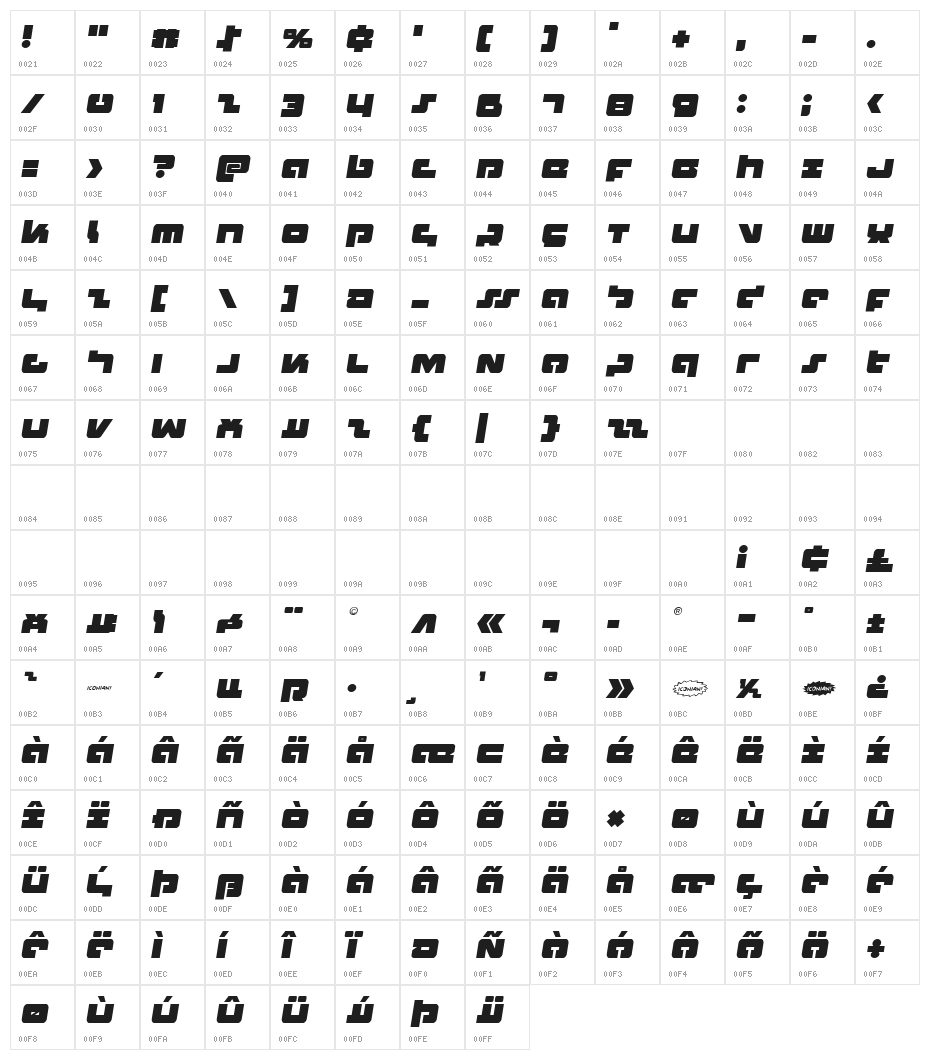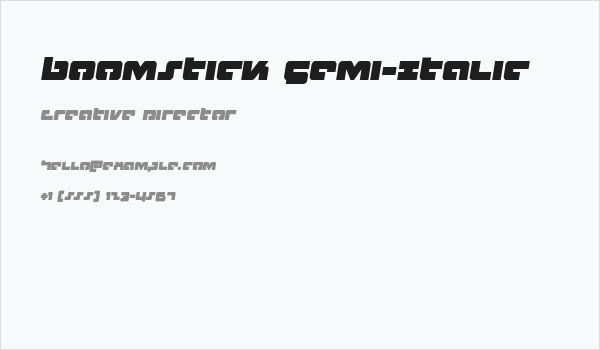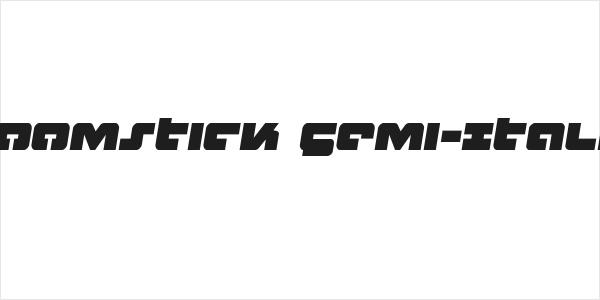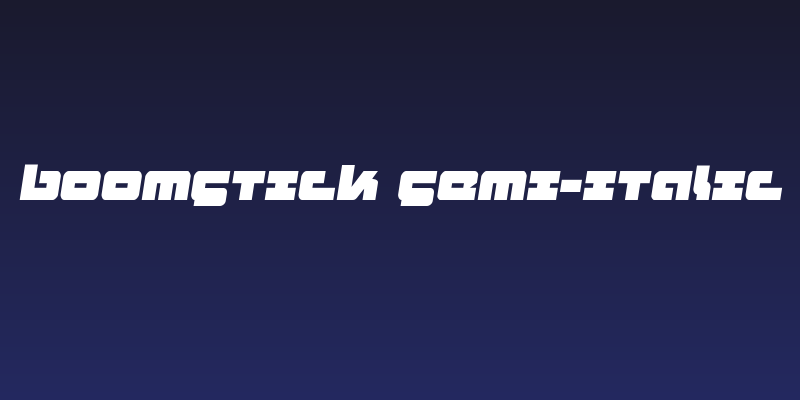
Boomstick Semi-Italic Font
Boomstick Semi-Italic Description
This font features a bold and dynamic design with a semi-italic slant, giving it a sense of motion and energy. The characters are blocky and geometric, with sharp angles and a strong presence. The uppercase and lowercase letters maintain a consistent style, while the numbers and special characters integrate seamlessly into the overall design. The font's boldness and unique style make it stand out, suitable for projects that require a strong visual impact.
| Proposed Projects | Ideal for sports branding, action movie posters, video game titles, and dynamic advertising campaigns. |